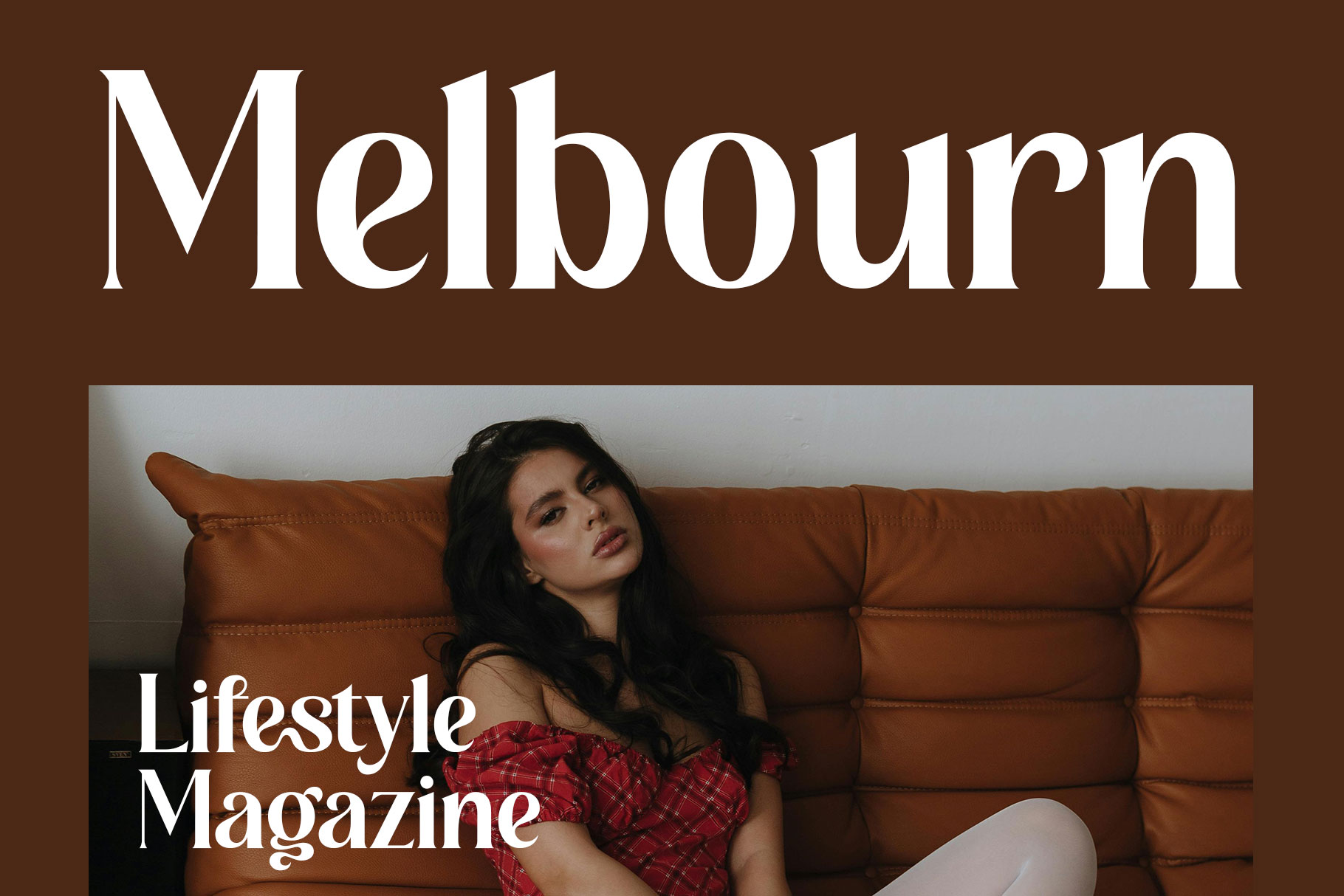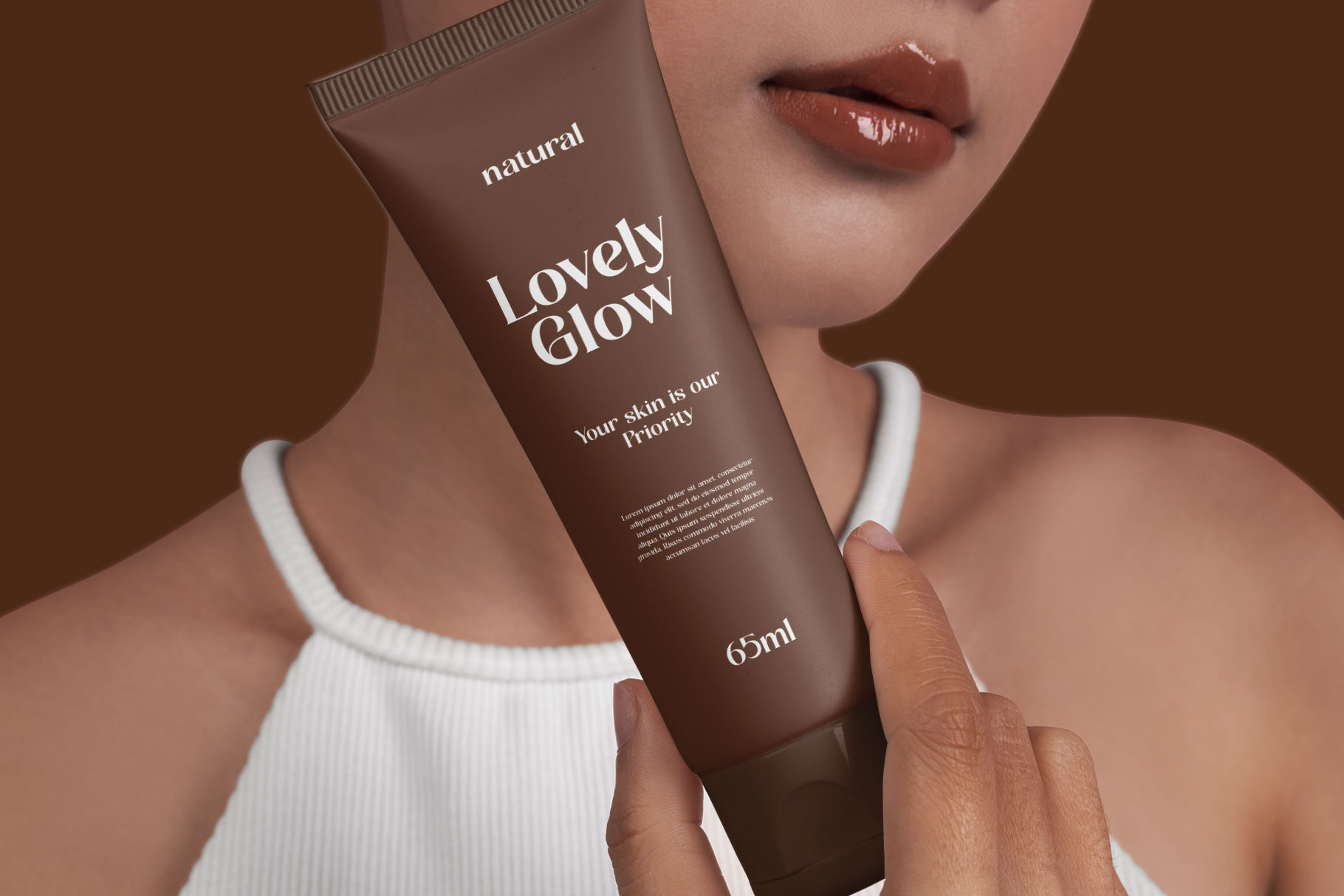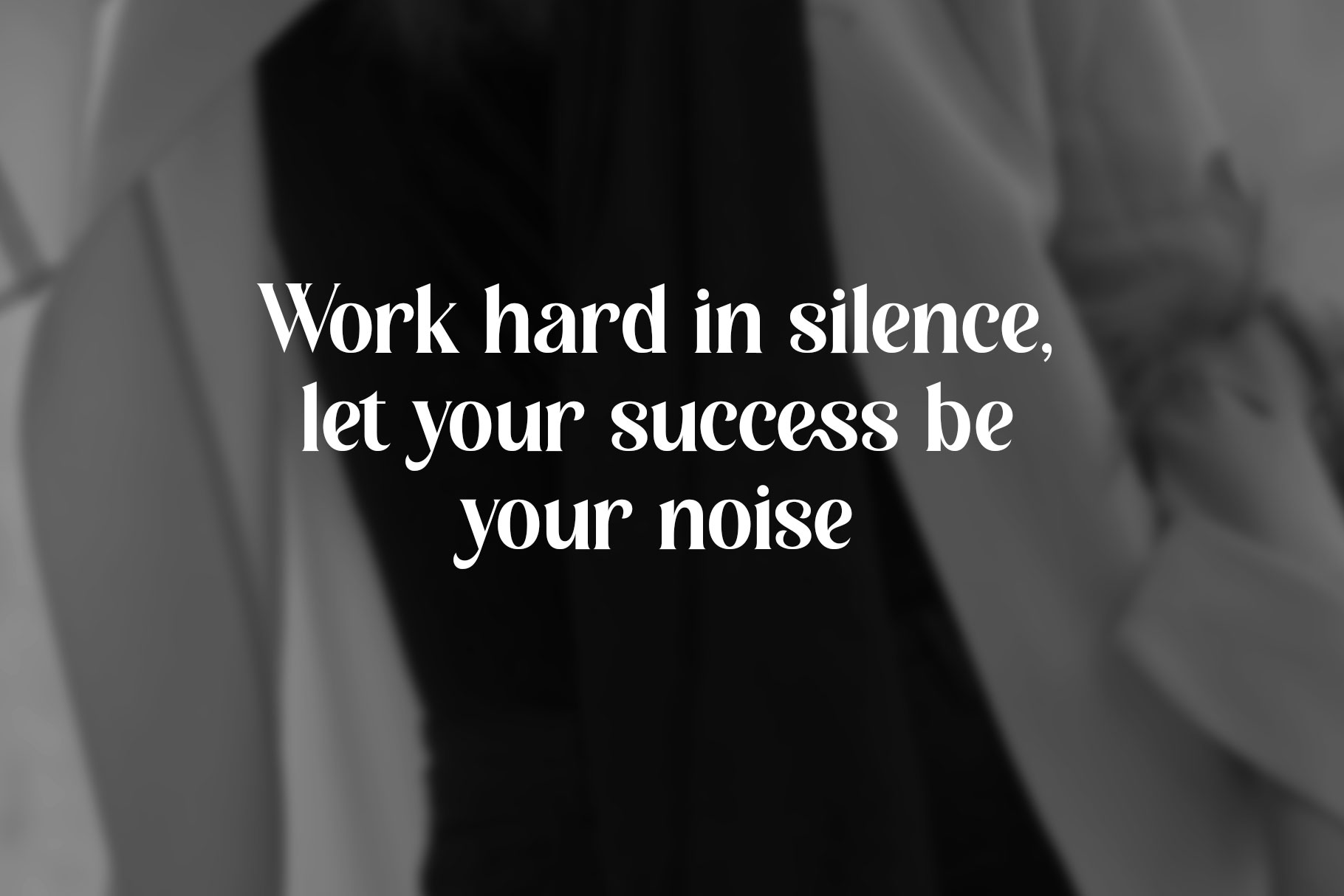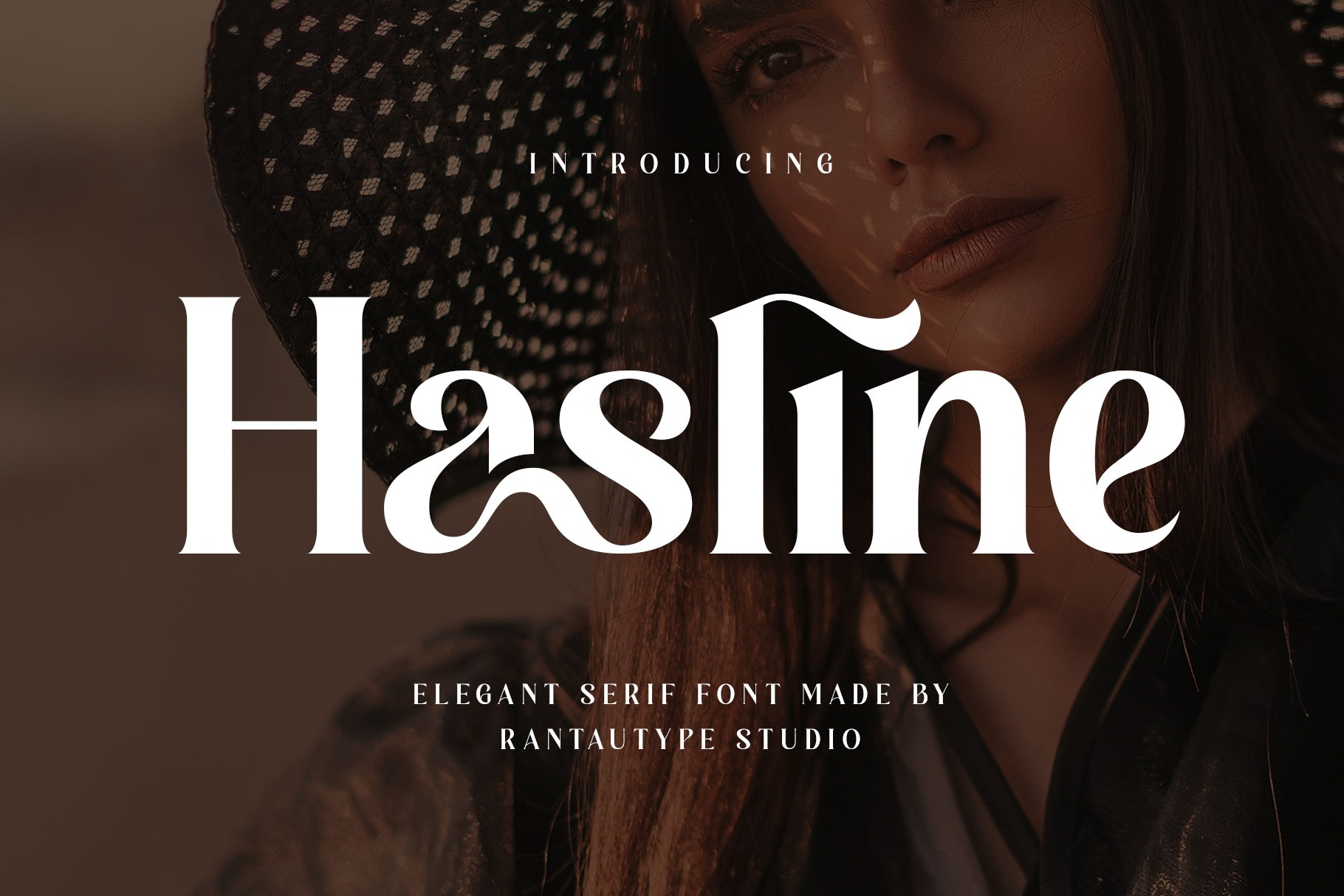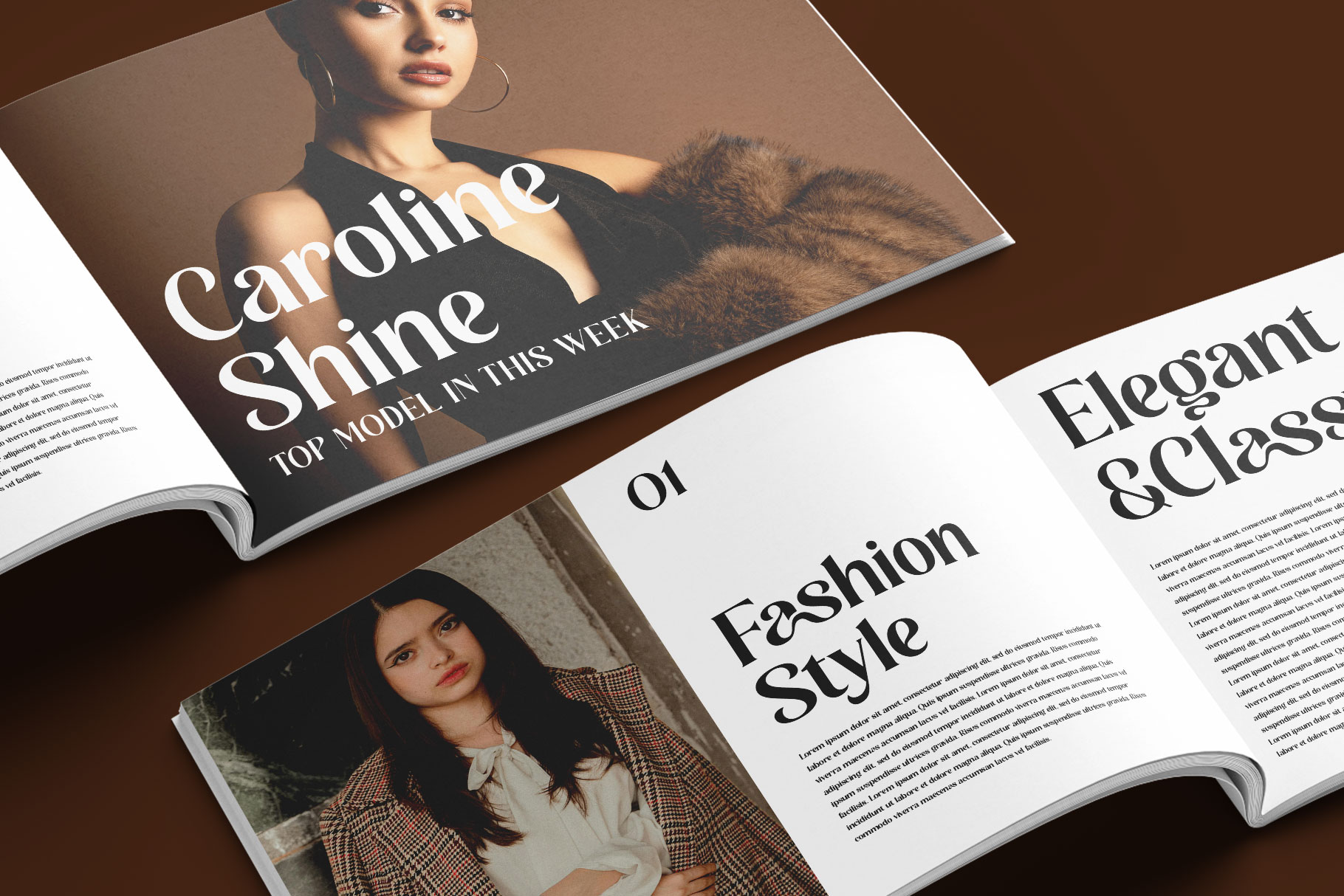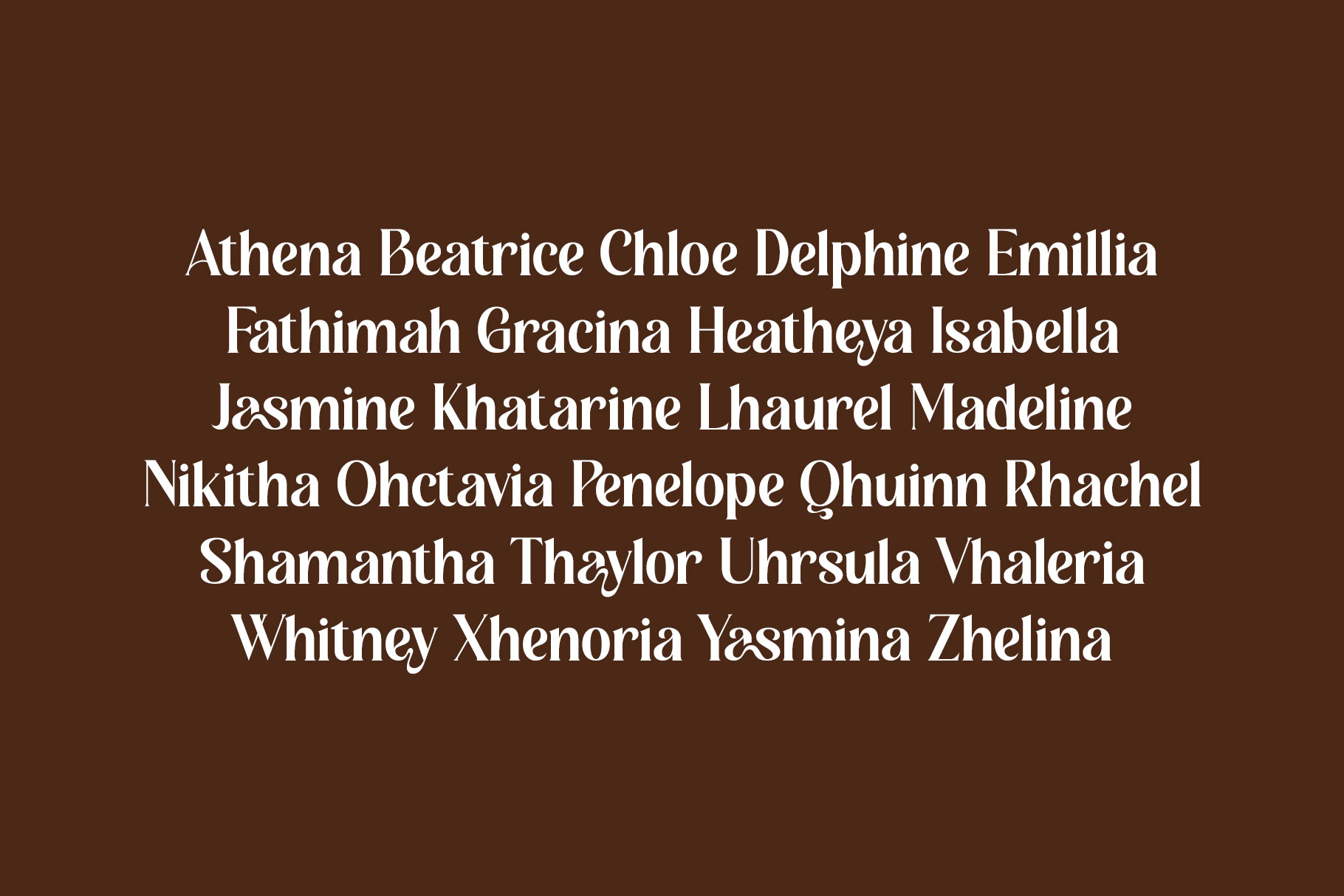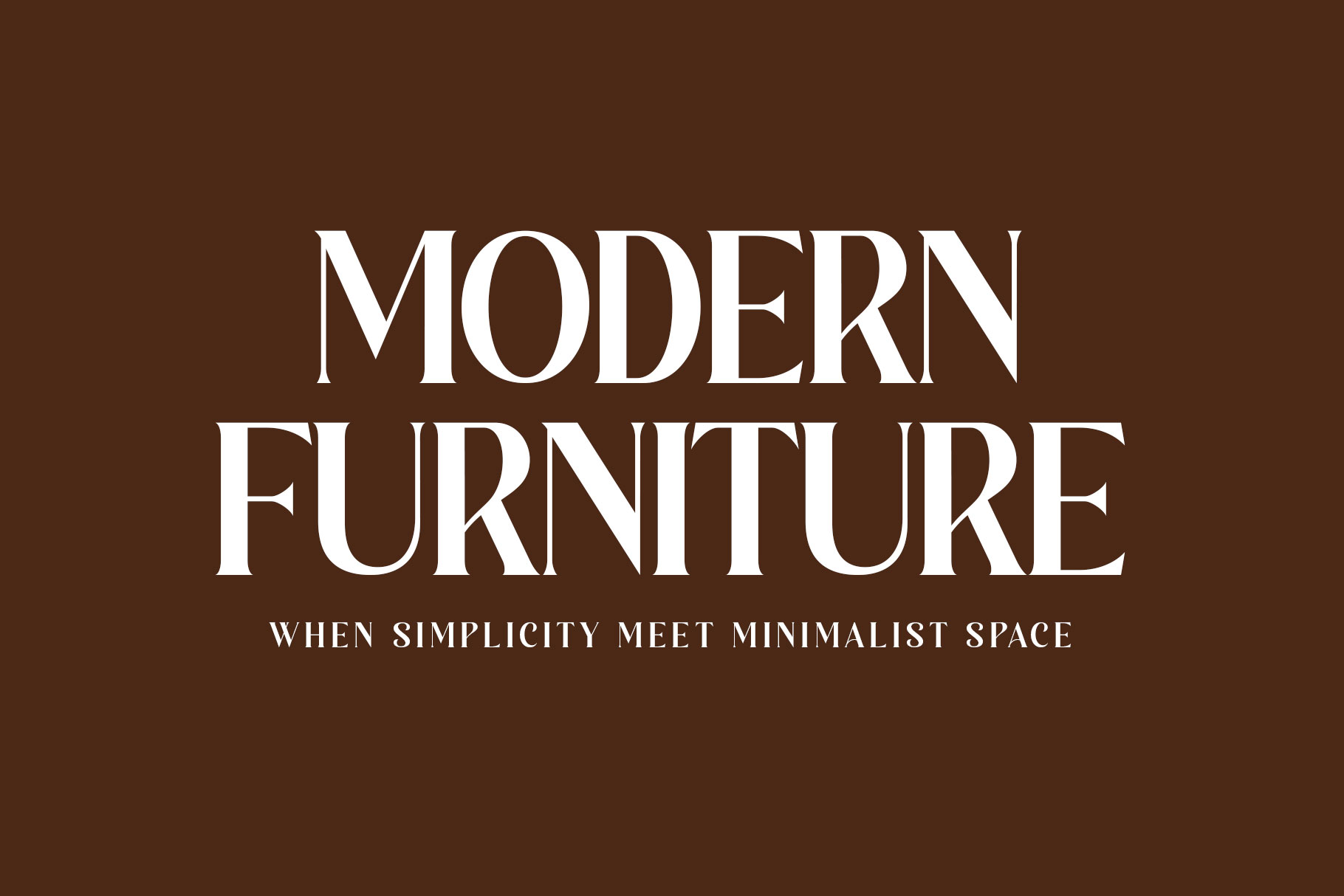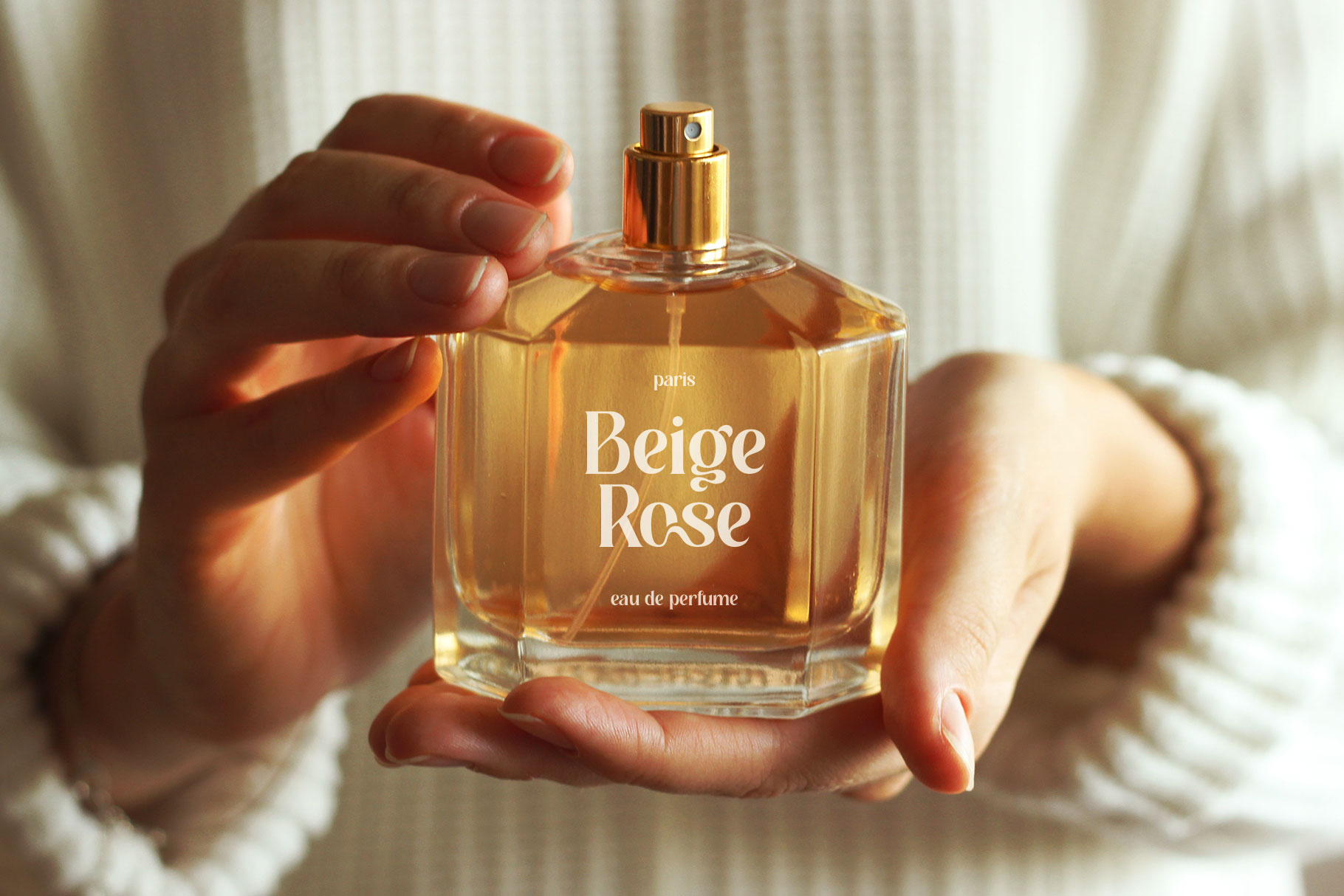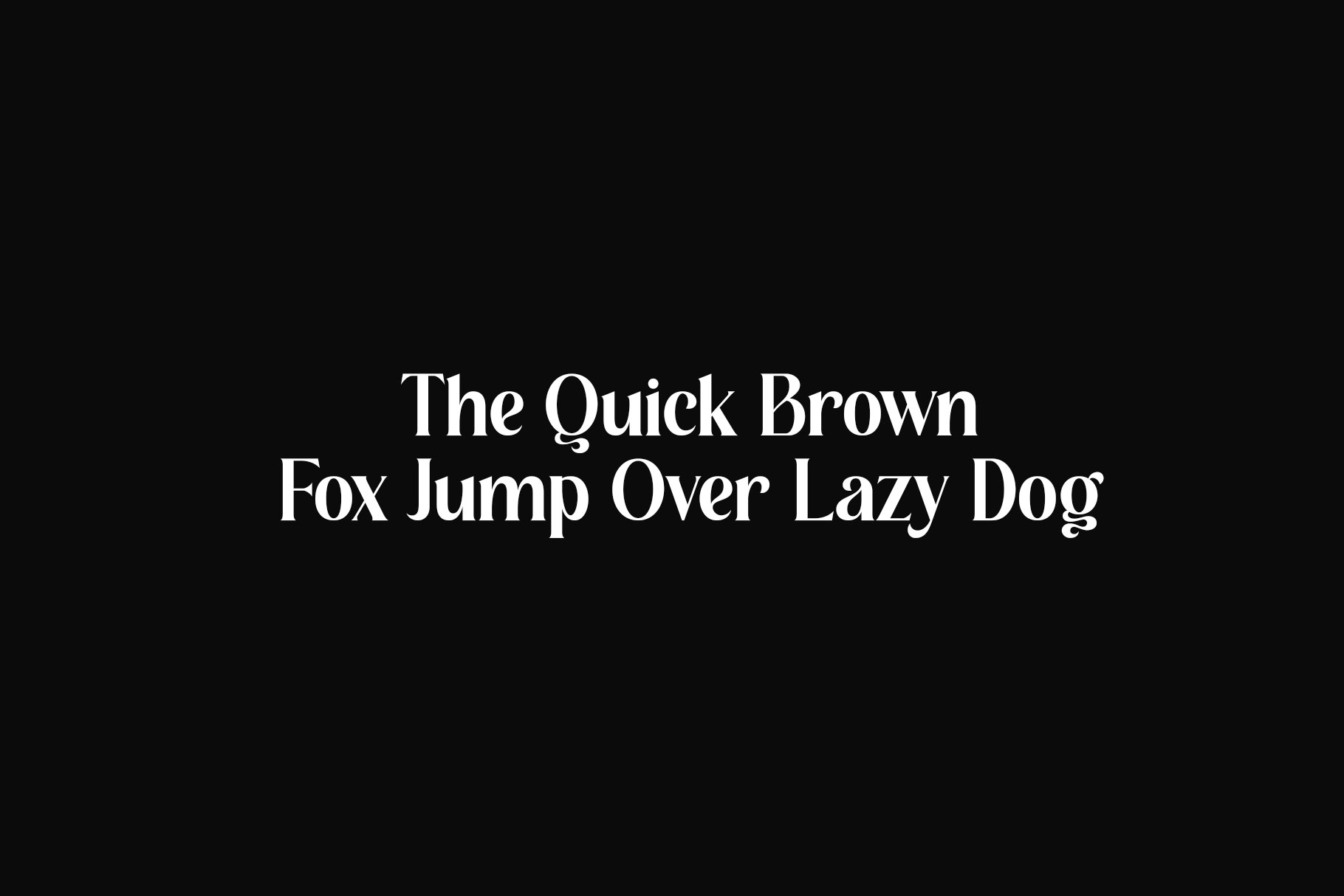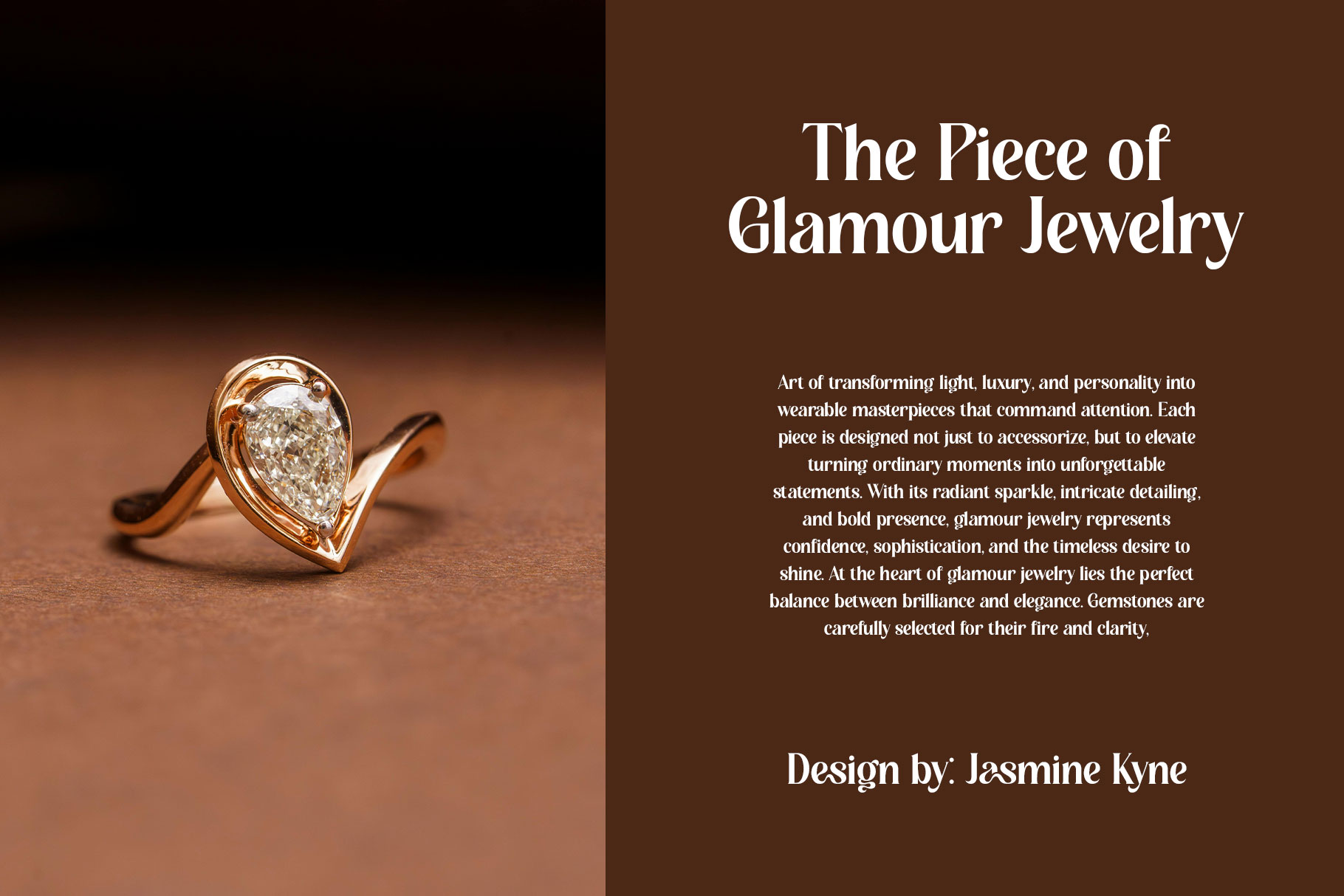
Hasline Elegant Serif Font
Hasline is elegant serif font embrace grace and feminity. Hasline is a perfectly choice for any creative endeavor, creating, modern, lifestyle design such as logotype, title, cover, branding, invitations, wedding designs, display and magazine, social media posts, advertisements, printed quotes, product packaging, corporate brand, product designs, labels, photography, watermarks, special events and any other project with elegant touch.